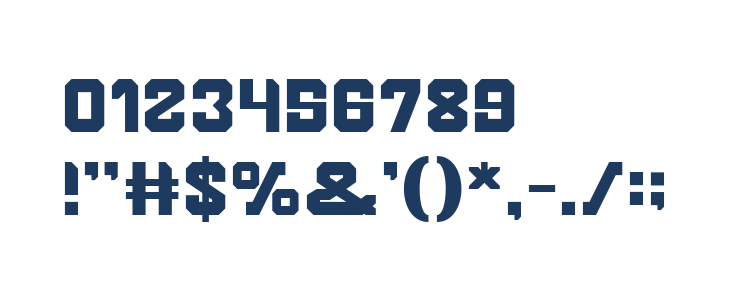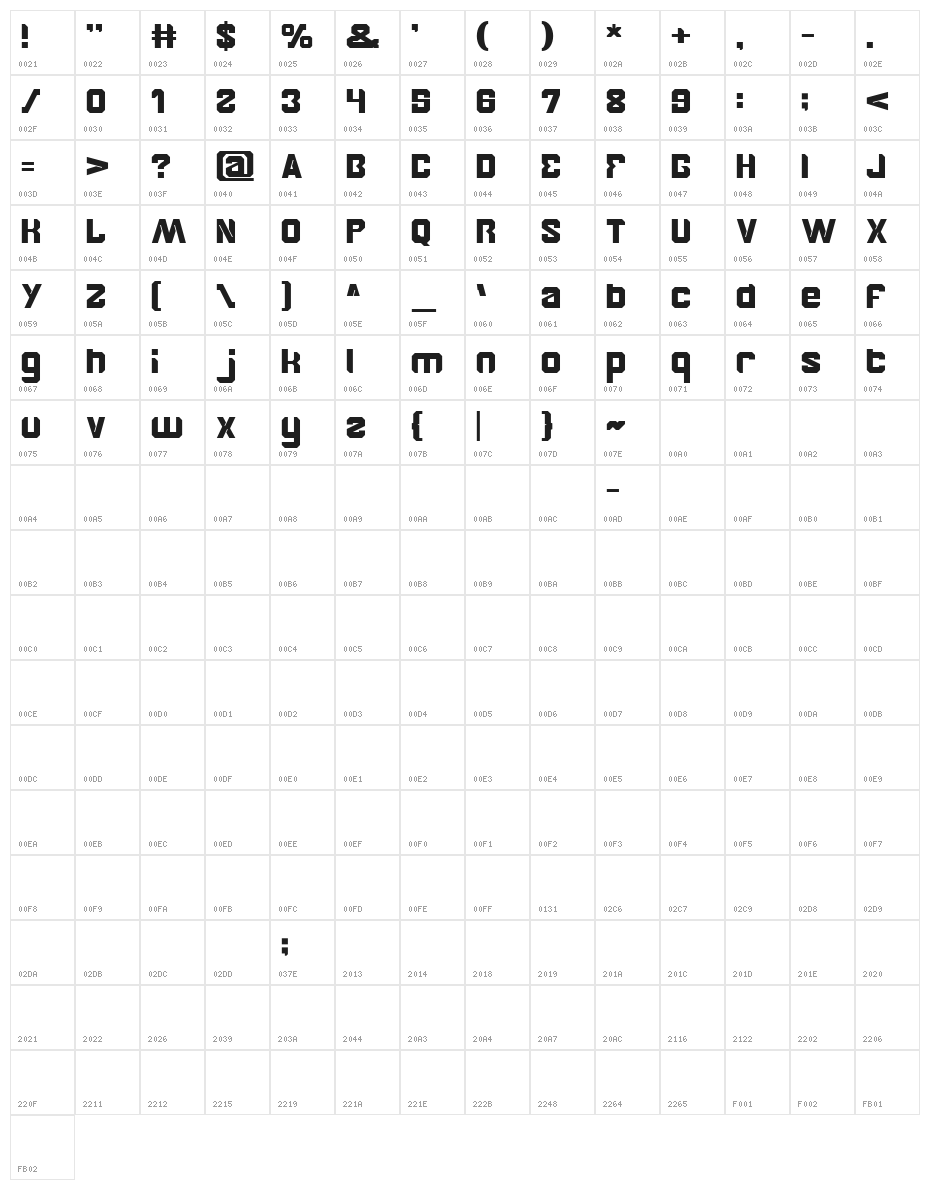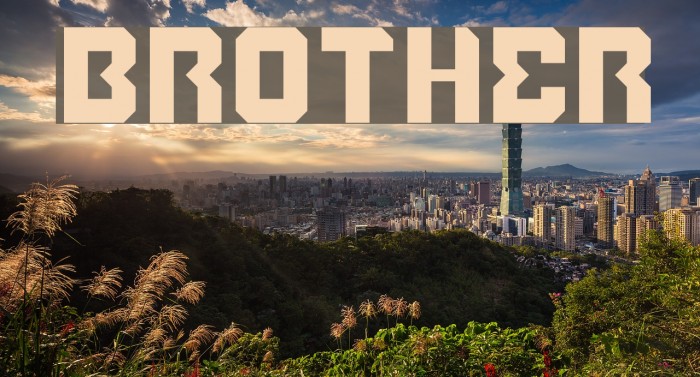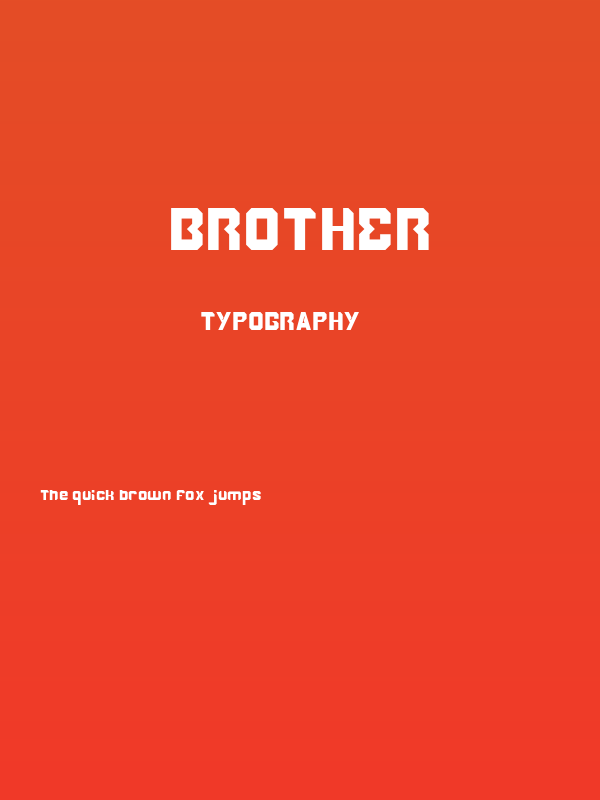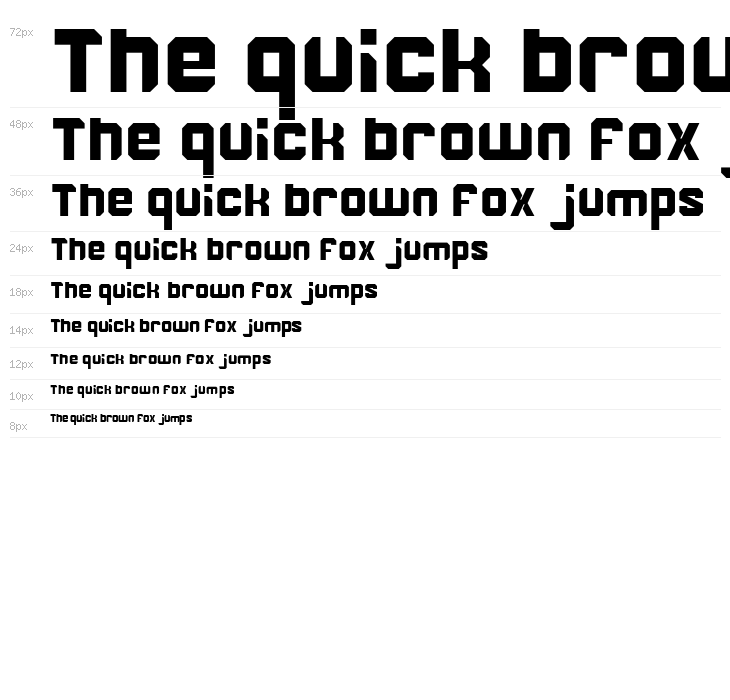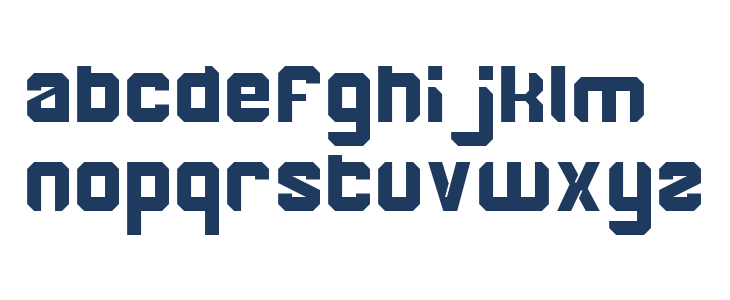
BROTHER Font
BROTHER Description
This font features a bold, geometric design with sharp angles and a strong presence. The uppercase letters are particularly striking, with a blocky, industrial feel that commands attention. The lowercase letters maintain the same boldness, ensuring consistency across text. Numbers and special characters are equally robust, making them suitable for impactful displays. The font's style is reminiscent of stencil or military typefaces, lending it a rugged and utilitarian aesthetic. Its high contrast and solid structure make it ideal for projects that require a strong visual impact.
CategoriesStencil
Overall StyleModern, Industrial
Proposed ProjectsIdeal for posters, logos, branding, and signage that require a bold statement.